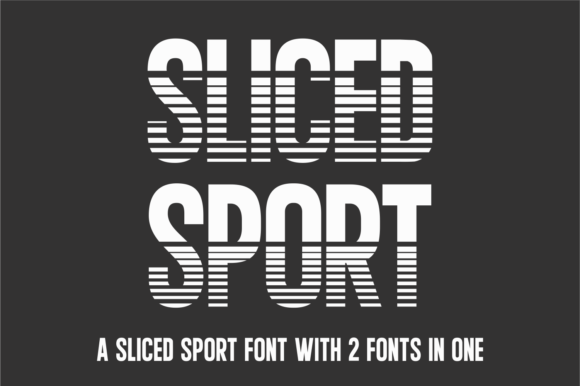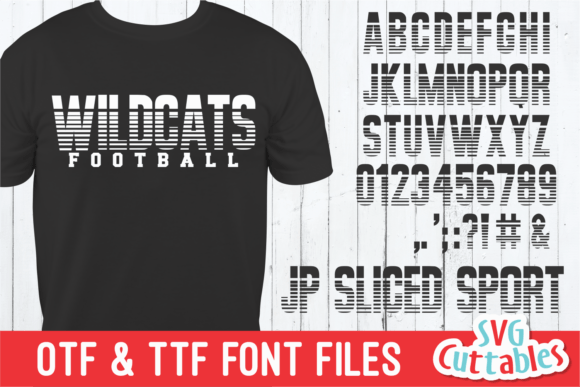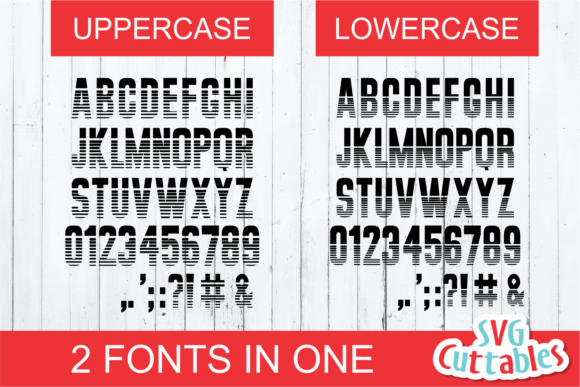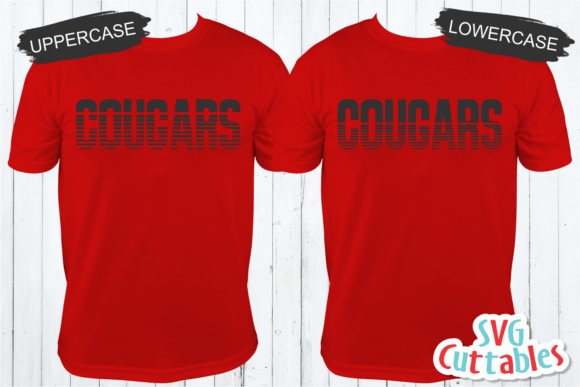
JP Sliced Sport Font Font
About the JP Sliced Sport Font Font
From logos to headlines, the JP Sliced Sport Font Font is the perfect choice for making a lasting impression. Wildcats is a fun and bold display font. Whether you’re using it for crafts, digital design, presentations, or making greeting cards, this font has the potential to become your favorite go-to font, no matter the occasion!
Wildcats excels as a display font for headlines, posters, and short impactful text in branding materials. Its bold character makes it ideal for eye-catching titles or logos for sports-related projects, youth-oriented brands, or products emphasizing energy and fun. Avoid using Wildcats for body text or long paragraphs; its strong forms are not suited to extended reading.
Pairing Wildcats effectively depends on the desired balance. For a playful yet sophisticated feel, consider pairing it with a clean sans-serif like Open Sans or a slightly more geometric font like Montserrat. If a more rugged and vintage feel is required, a complementary serif such as Playfair Display can be used.
Wildcats possesses a bold and playful personality. Its energetic forms are best suited for dynamic designs needing a strong visual punch and an informal, friendly feel. The font’s inherent informality makes it inappropriate for projects requiring a high degree of sophistication or formality.